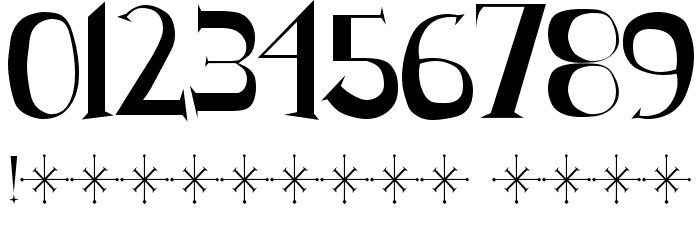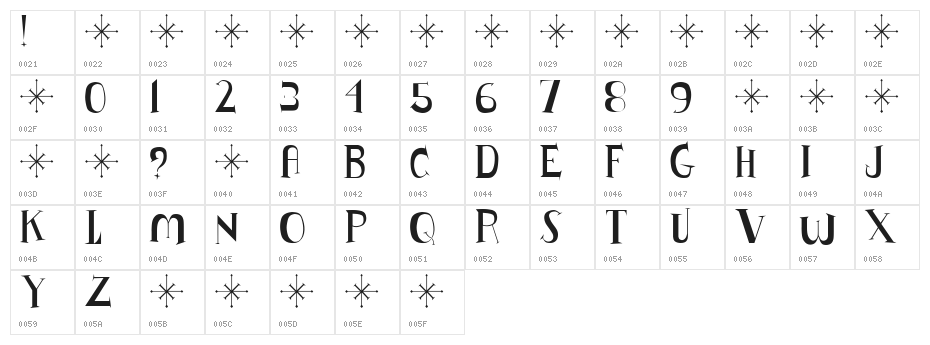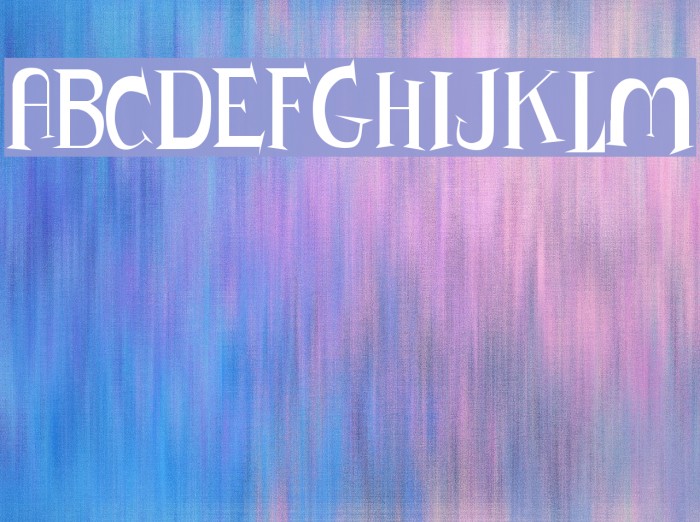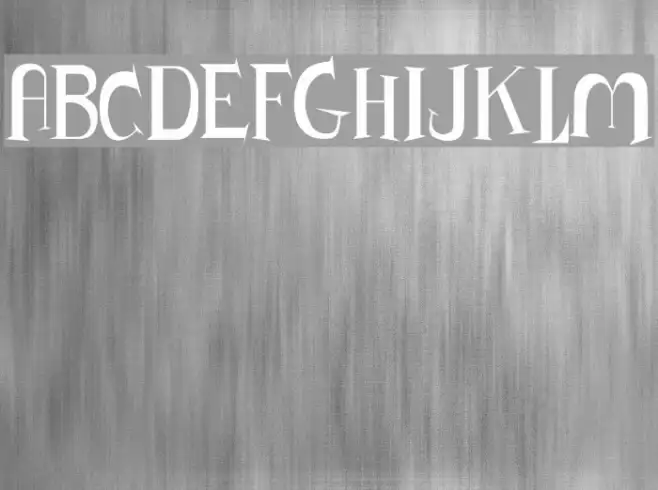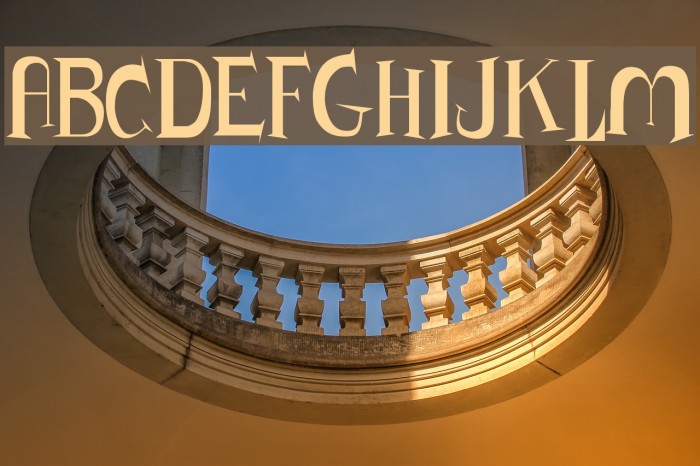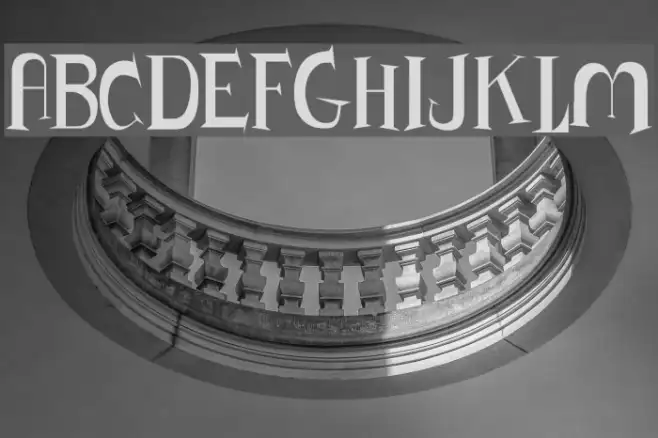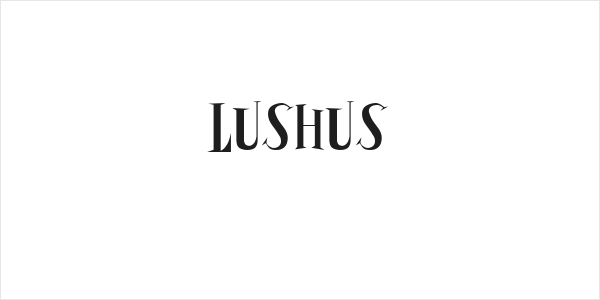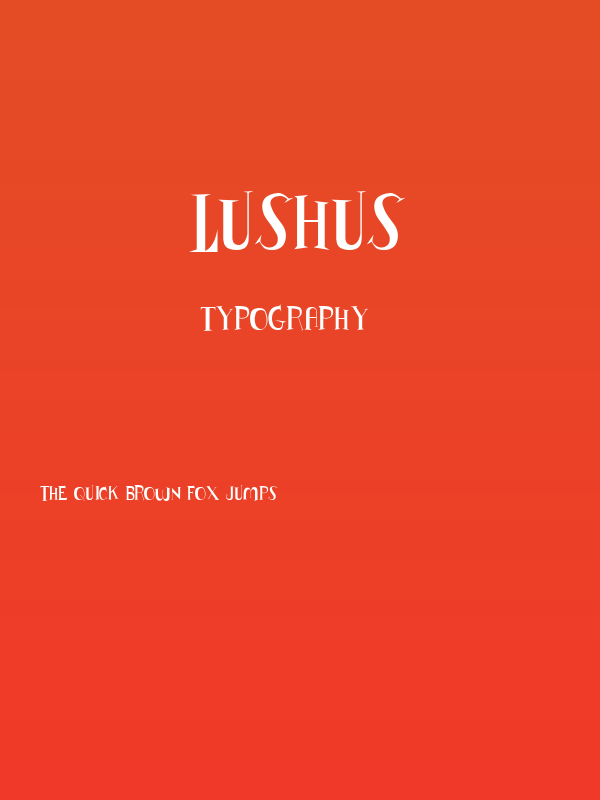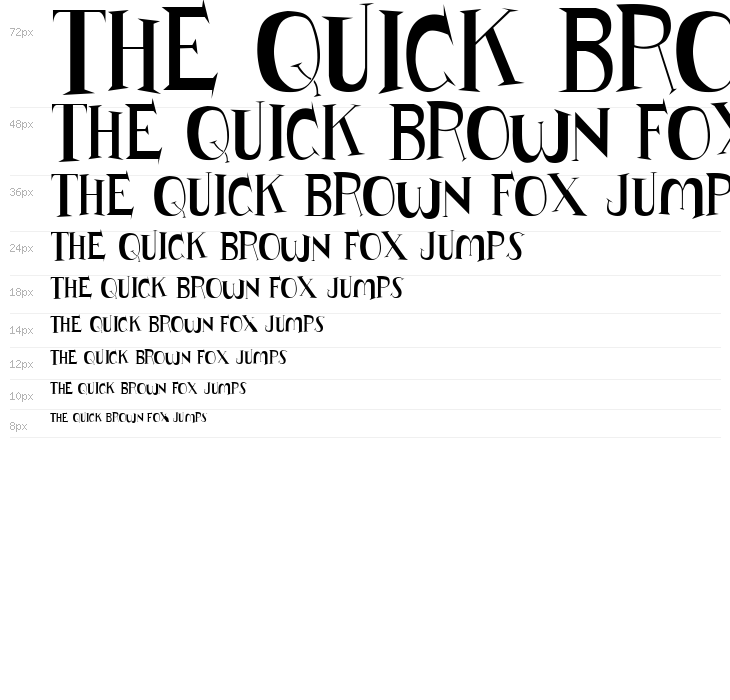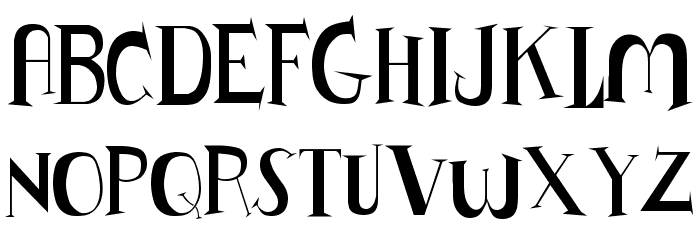
Lushus Font
Lushus Description
This font features a unique and artistic design with a blend of sharp angles and smooth curves, creating a striking visual impact. The uppercase letters exhibit a bold and dynamic style, with distinctive cuts and extensions that add a sense of movement and flair. The lowercase letters maintain a consistent style, offering a harmonious flow with the uppercase set. Numbers are equally bold, with a geometric influence that enhances readability while maintaining the font's artistic essence. Special characters are creatively designed, incorporating star-like elements that contribute to the font's decorative appeal. Overall, this font combines modern aesthetics with a touch of vintage elegance, making it suitable for a variety of creative applications.
| Proposed Projects | Ideal for branding, posters, album covers, and any project requiring a bold, artistic touch. |